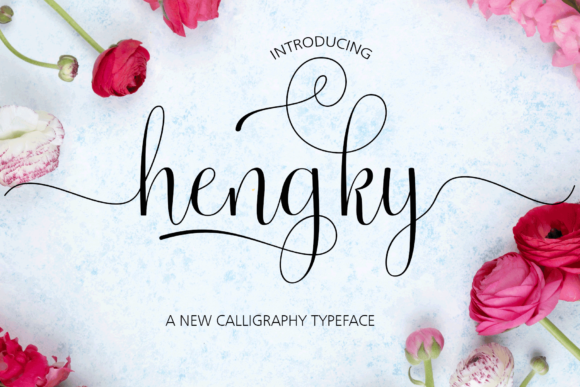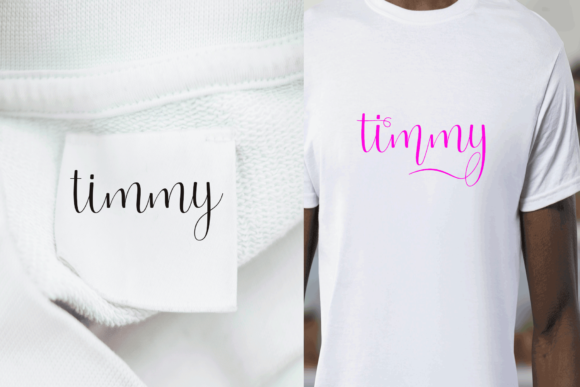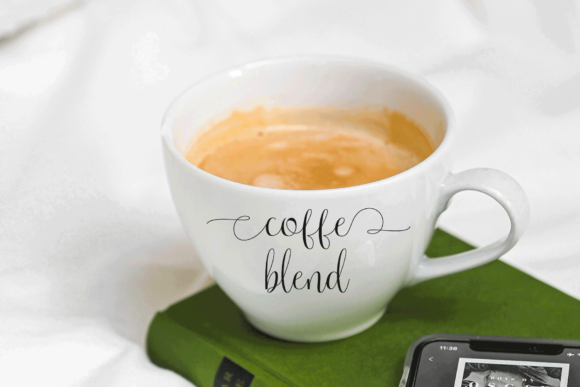
Introduction to Hengky Font
Hengky is a beautiful, modern and incredibly stylish handwritten font.
It looks stunning on wedding invitations, thank you cards, quotes, greeting cards, logos, business cards and every other design which needs a handwritten touch This font is PUA encoded which means you can access all of the glyphs and swashes with ease.
Key Features of Hengky Font
Why Choose Hengky Font?
Hengky Font offers exceptional quality and versatility, making it a valuable addition to your design toolkit. Whether you’re creating for personal projects or commercial use, Hengky Font delivers professional results.